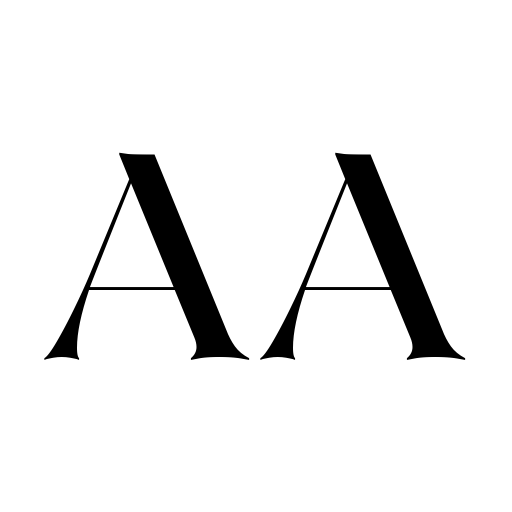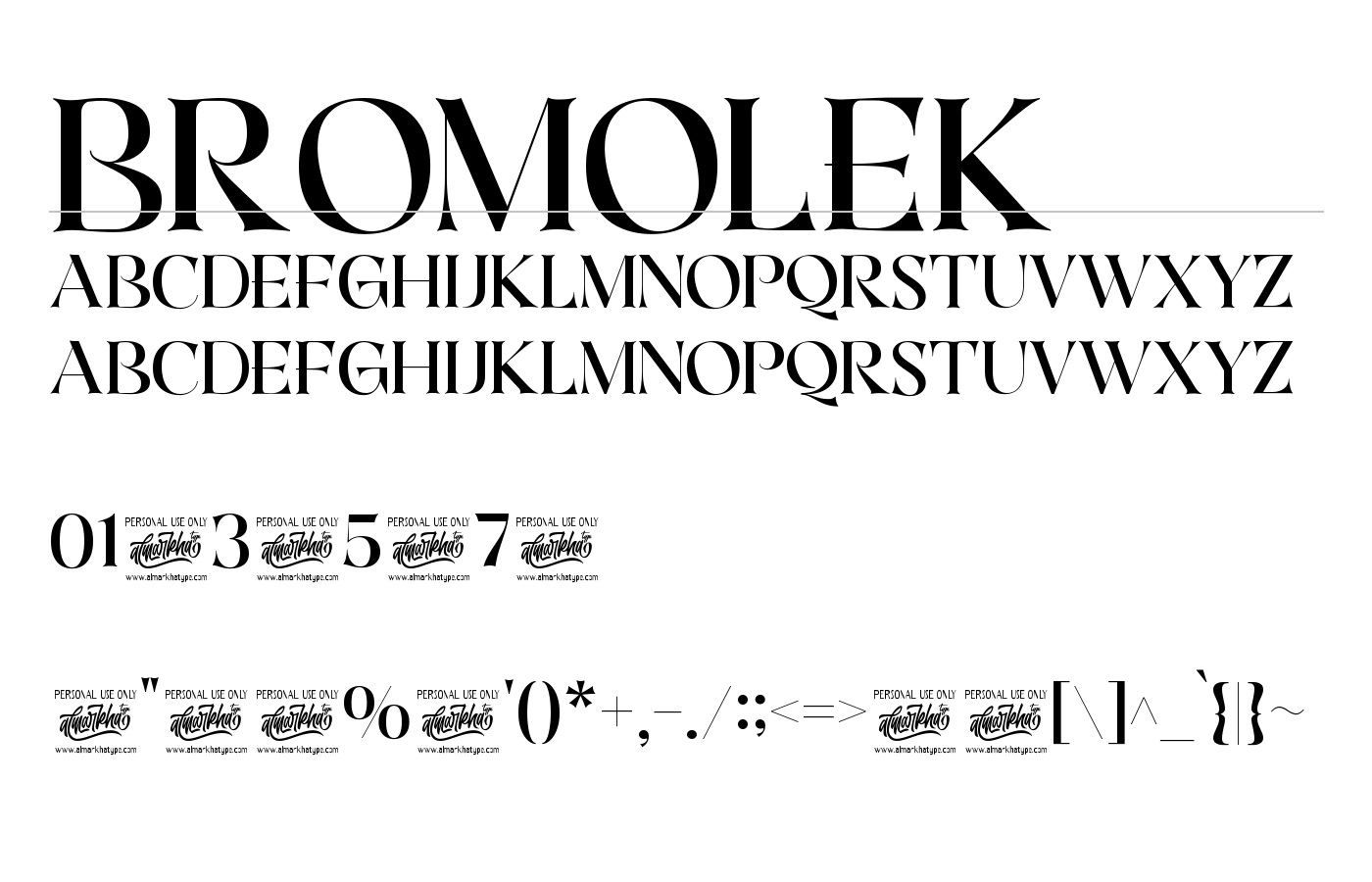
Bromolek is a striking serif font with high contrast between thick and thin strokes, featuring sharp, elegant serifs that give it a refined, luxurious feel. Its tall, narrow letterforms combined with unique details like pointed terminals and distinct glyph shapes make it ideal for upscale branding, editorial headlines, and fashion-forward designs that need a bold yet sophisticated presence. This font excels in settings where elegance and modernity are key, offering a stylish statement that commands attention.
Bromolek Font
About Bromolek Font
| Font family | Bromolek Font |
| Designer | Almarkhatype 2021 - Abdul Malik - Ghazi |